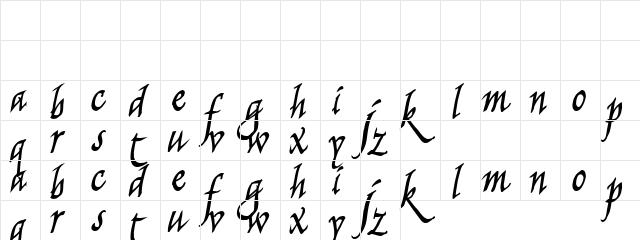
Killgraphy Bold Regular
Design Context for Killgraphy Bold Typeface
Killgraphy Bold is a composed and adaptable typeface that performs quietly and consistently across a wide range of design contexts. Its bold stroke weight gives it real presence on the page.